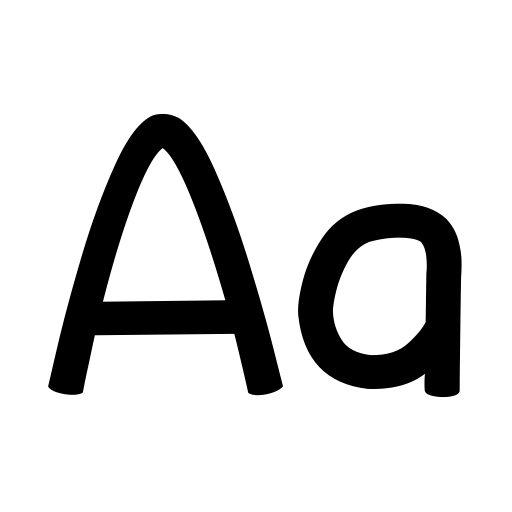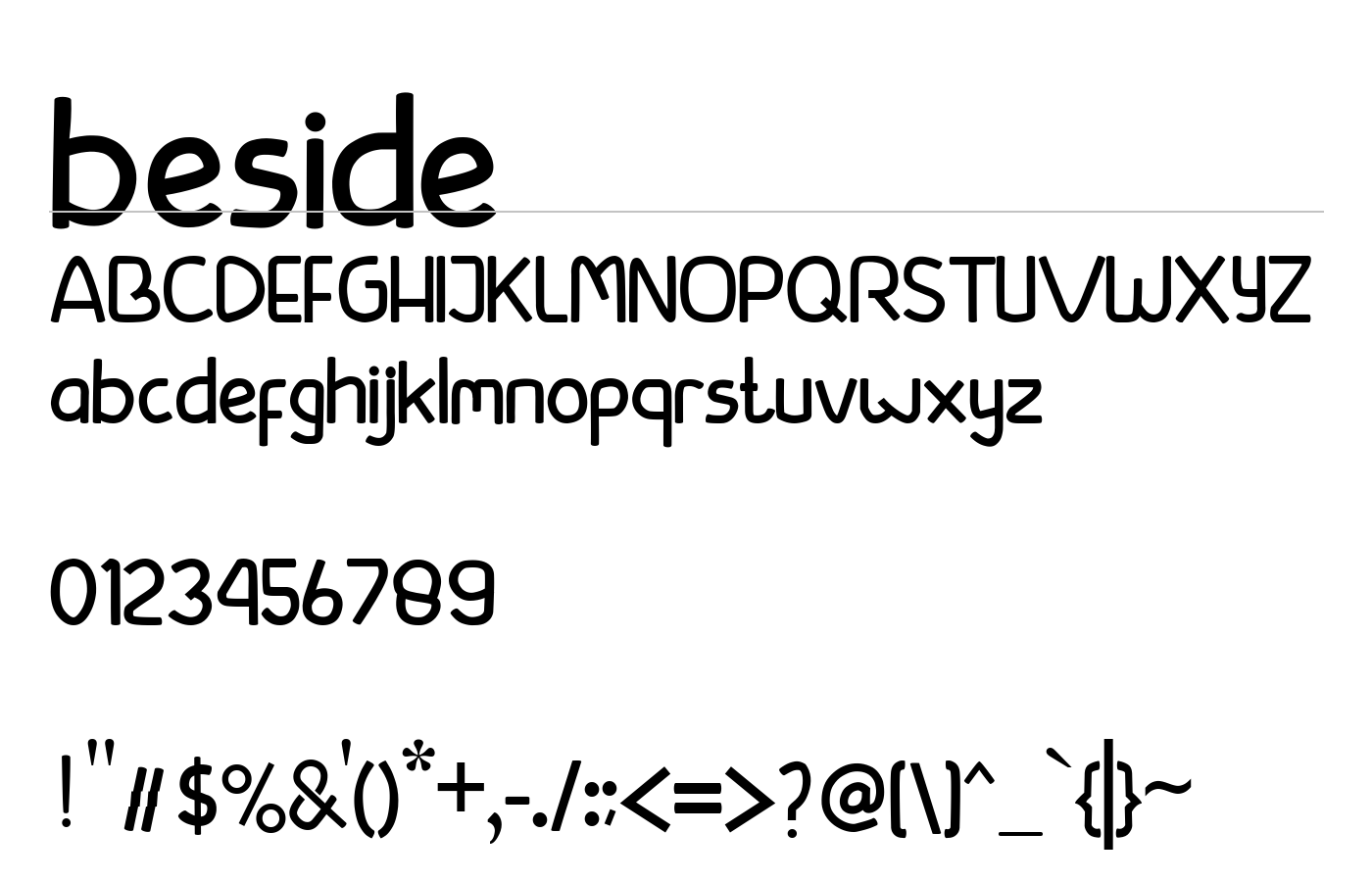
Beside Font is a playful and modern sans serif typeface featuring rounded, slightly irregular letterforms that create a friendly and approachable vibe. Its medium weight, open spacing, and unique quirky details make it well-suited for creative branding, informal headlines, and projects seeking a casual yet distinctive personality. This font works great for children's books, lifestyle branding, and any design that benefits from a warm, engaging tone.
beside Font